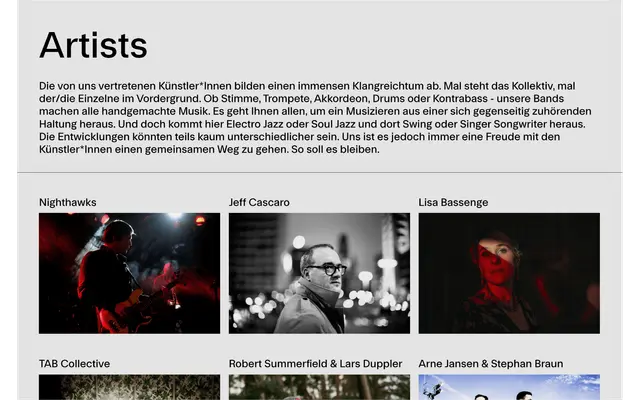
System Blank specimen from Frost
A 26-style grotesque family spanning 13 weights from Hairline to Black, with a companion mono and an unusual Skeleton cut at the extreme light end.
The family runs from Ultrathin and Hairline through to Heavy and Black, each weight paired with an italic, making 26 styles in total. A Skeleton variant sits at the lightest extreme, offering a stroked outline treatment rather than a conventional thin weight. System Mono extends the family into monospaced territory, broadening its use across editorial and technical contexts.
System Blank is labelled a grotesk by the foundry, presenting clean upright and italic cuts across an extremely wide weight range typical of contemporary grotesque sans-serif families. A companion mono subfamily further anchors it in the grotesque tradition.